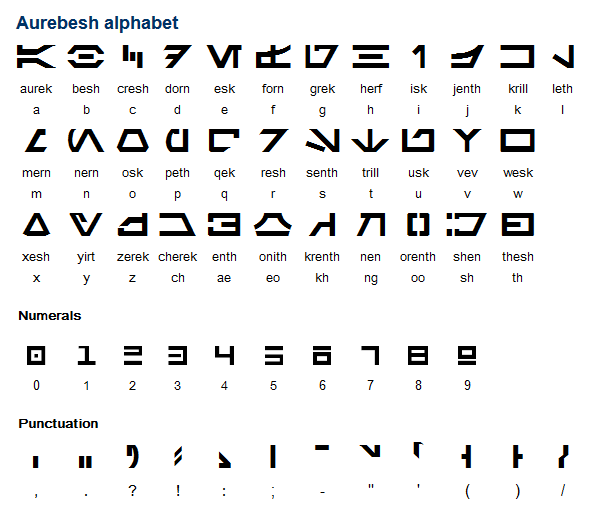
This looks pretty nice. Aurebesh has 8 other letters (which are digraphs), as well as numerals and punctuation… (The quotation mark and apostrophe in the sample are the left ones. To get the right ones, flip them horizontally)
I can map Cherek at Č, Enth at Æ, Nen at Ŋ, Shen at Š, and Thesh at Þ
The other 3 are mapped the best I can: Onith at Œ, Krenth at Ķ, and Orenth at Ō
Oh, plus a credits sign that looks like this (I couldn't find one image that contained it all)